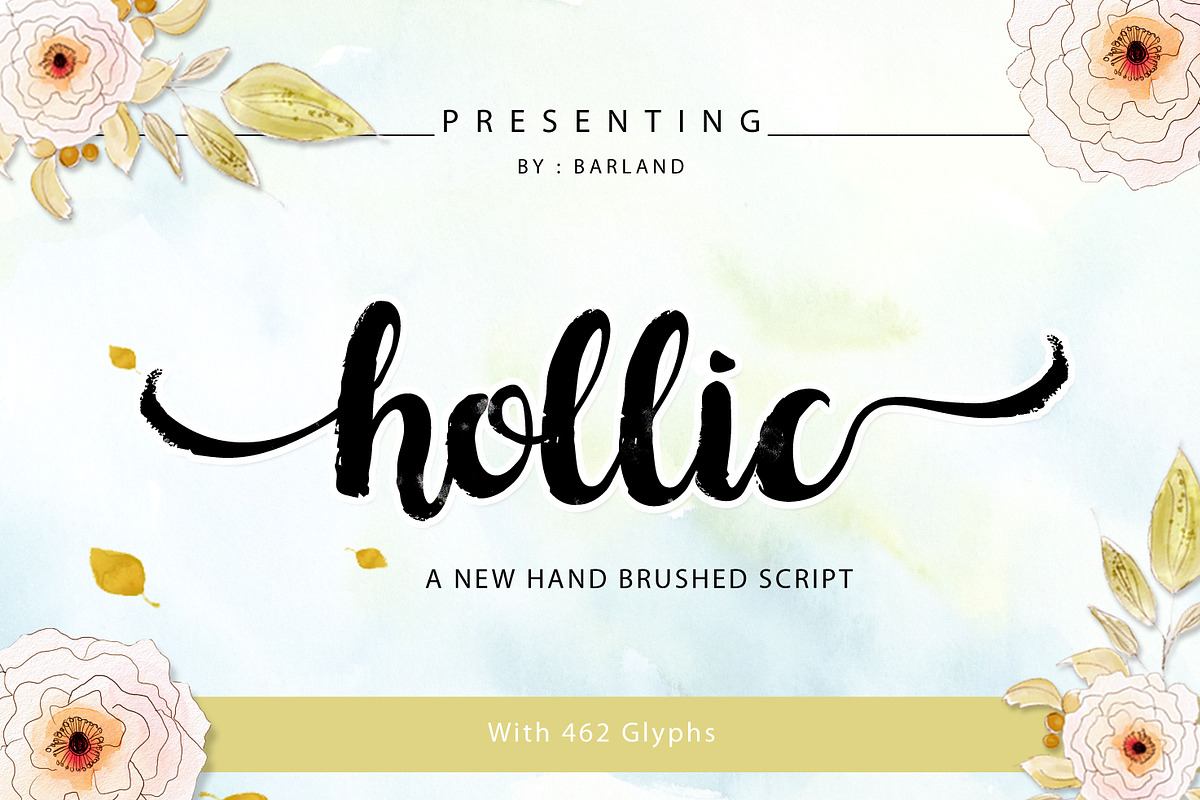
Hollic Brush Font Free Download is a dynamic, hand-painted typeface that captures the energy and texture of real brush strokes. With its bold lines, artistic flair, and natural flow, this font is perfect for edgy branding, poster design, album covers, apparel graphics, and social media content that needs a raw, expressive touch.
Designed to feel spontaneous and full of motion, Hollic Brush Font Free Download delivers personality and power in every letter. It’s especially popular for projects that demand a handcrafted, rebellious, or street-inspired vibe. Whether you're working on a bold headline or an urban-style logo, Hollic brings the perfect balance of grit and creativity.